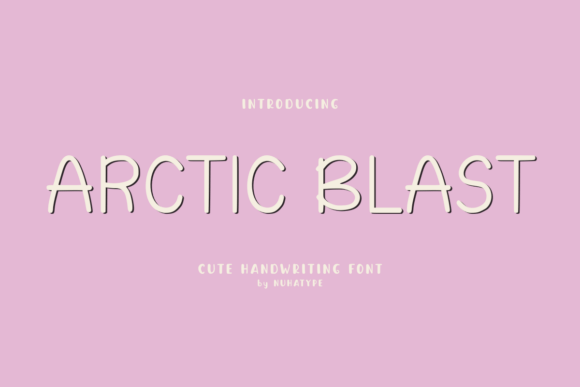
Introduction to Arctic Blast Font
Arctic Blast is a simple and cute handwritten font inspired by natural handwriting.
With its rounded and friendly look, this font is perfect for journals, planners, notes, sticky notes, KDP interiors, and Canva templates You can also use it for birthday and baby shower designs, greeting cards, stickers, diaries, tumblers, sublimation projects, DIY crafts, and many more creative projects that need a fun and adorable touch.
Key Features of Arctic Blast Font
Why Choose Arctic Blast Font?